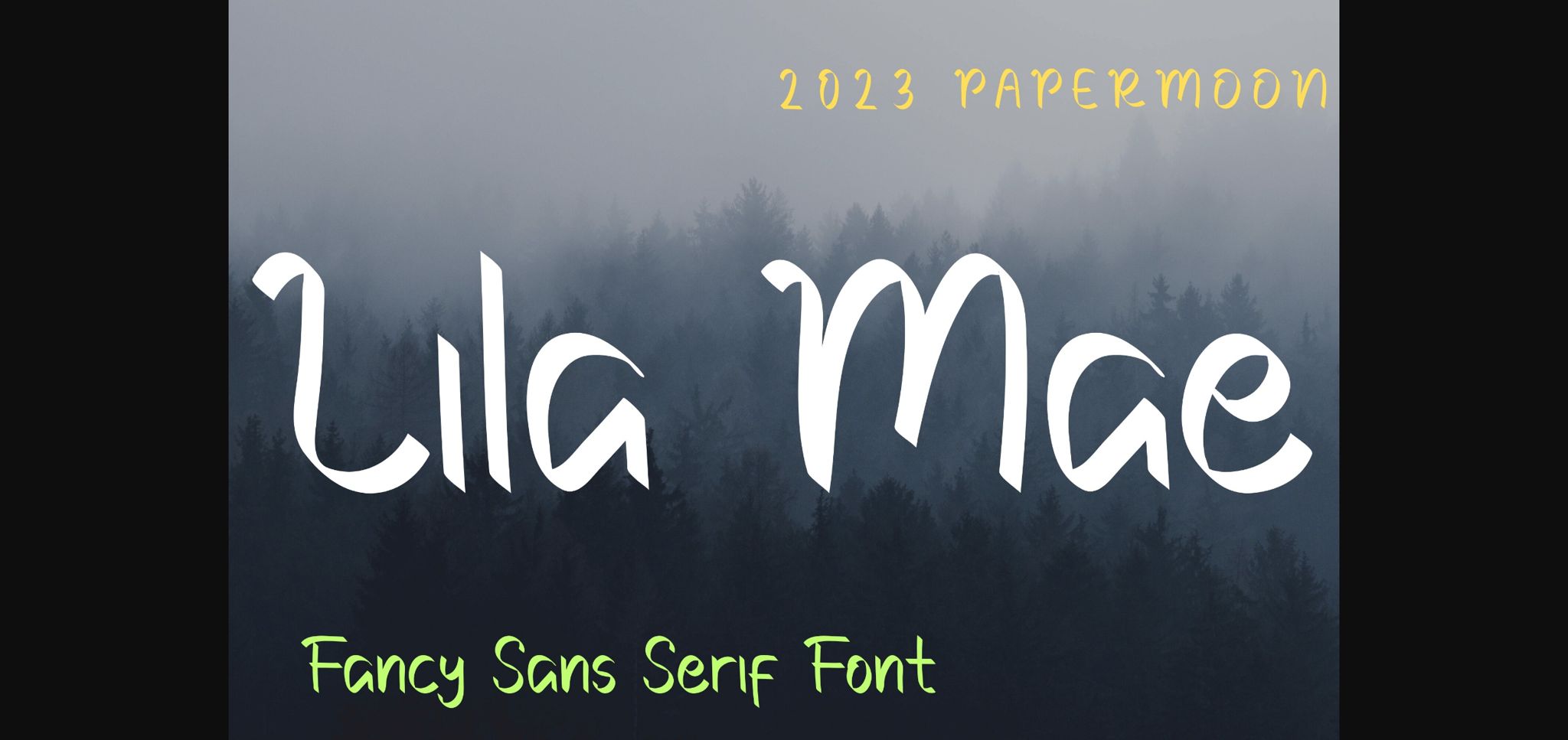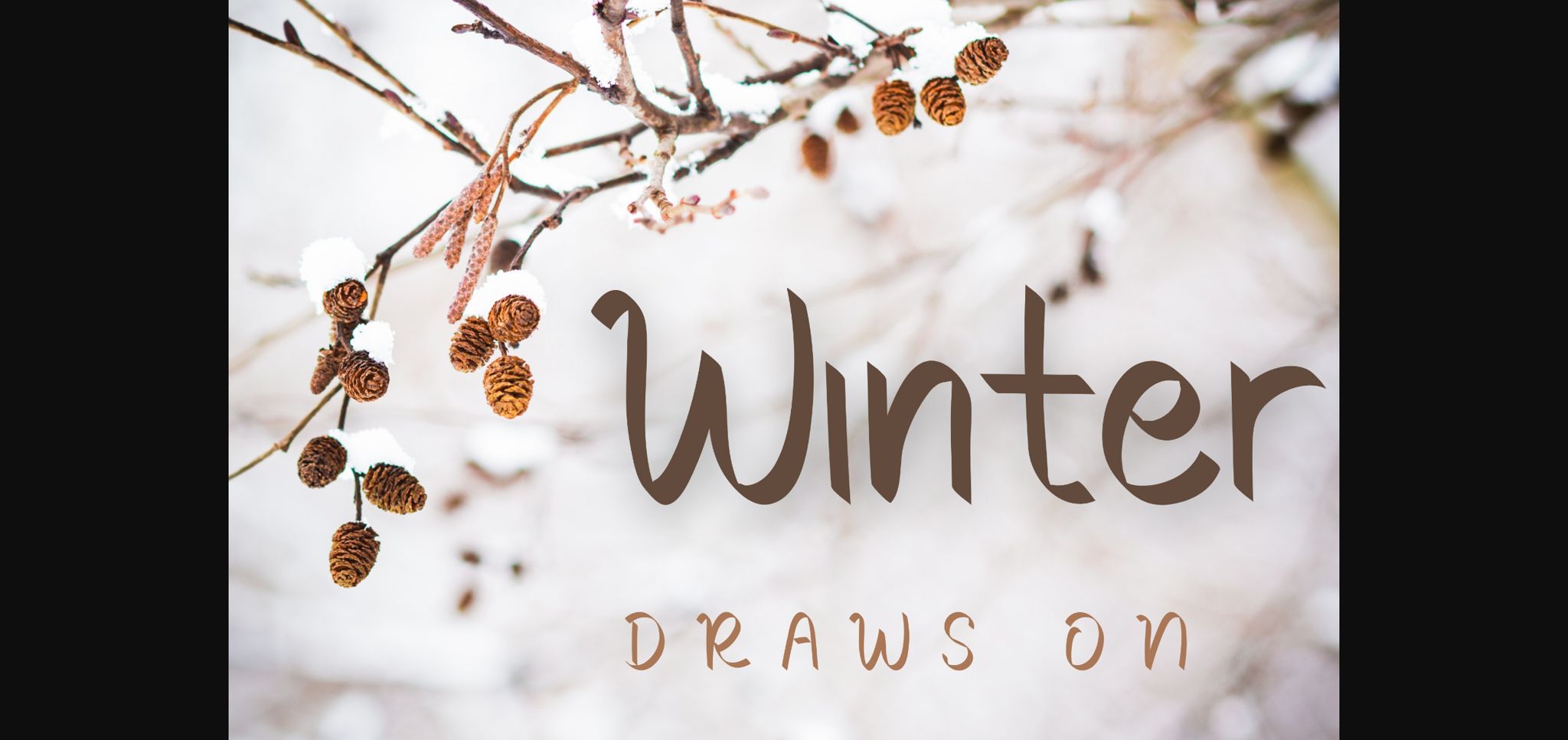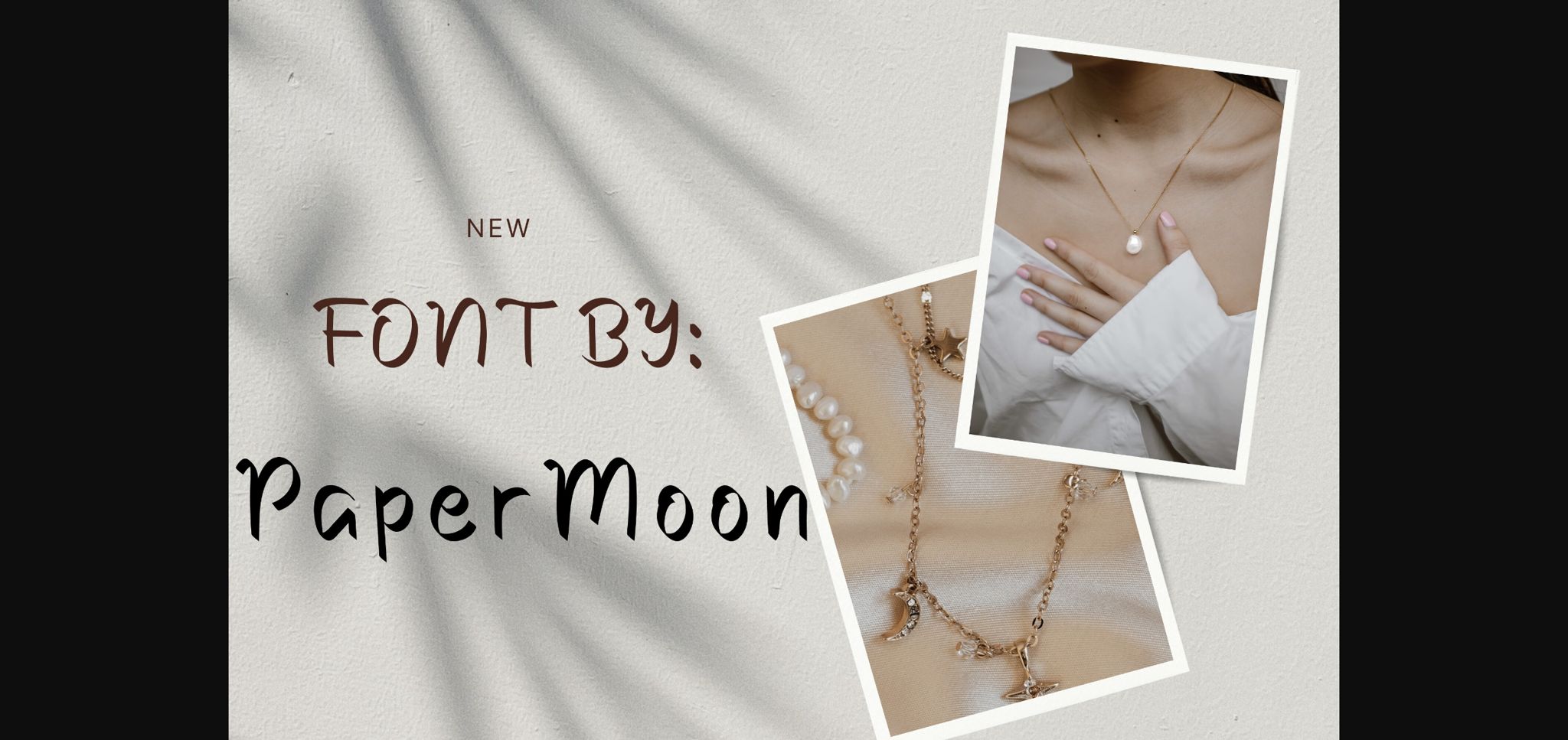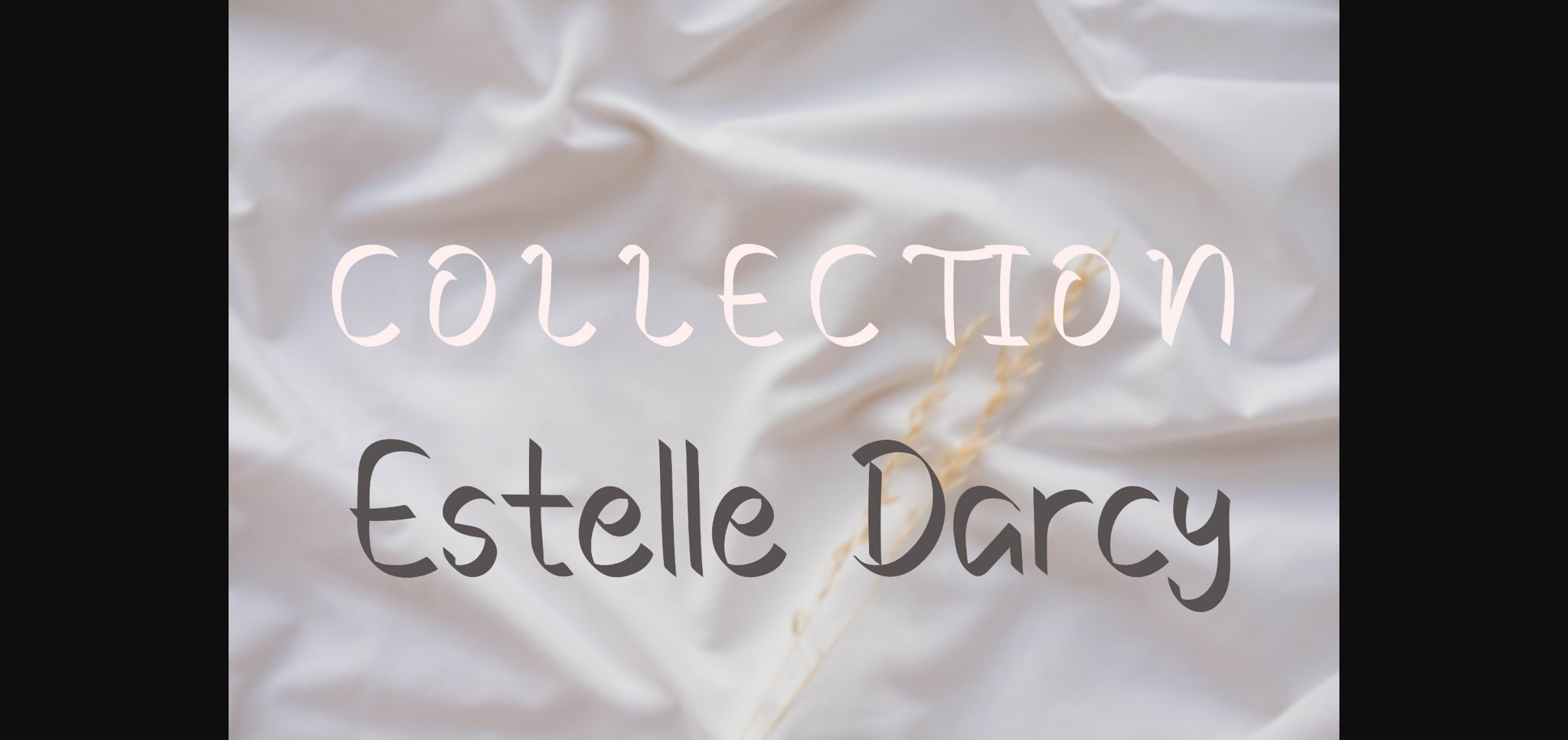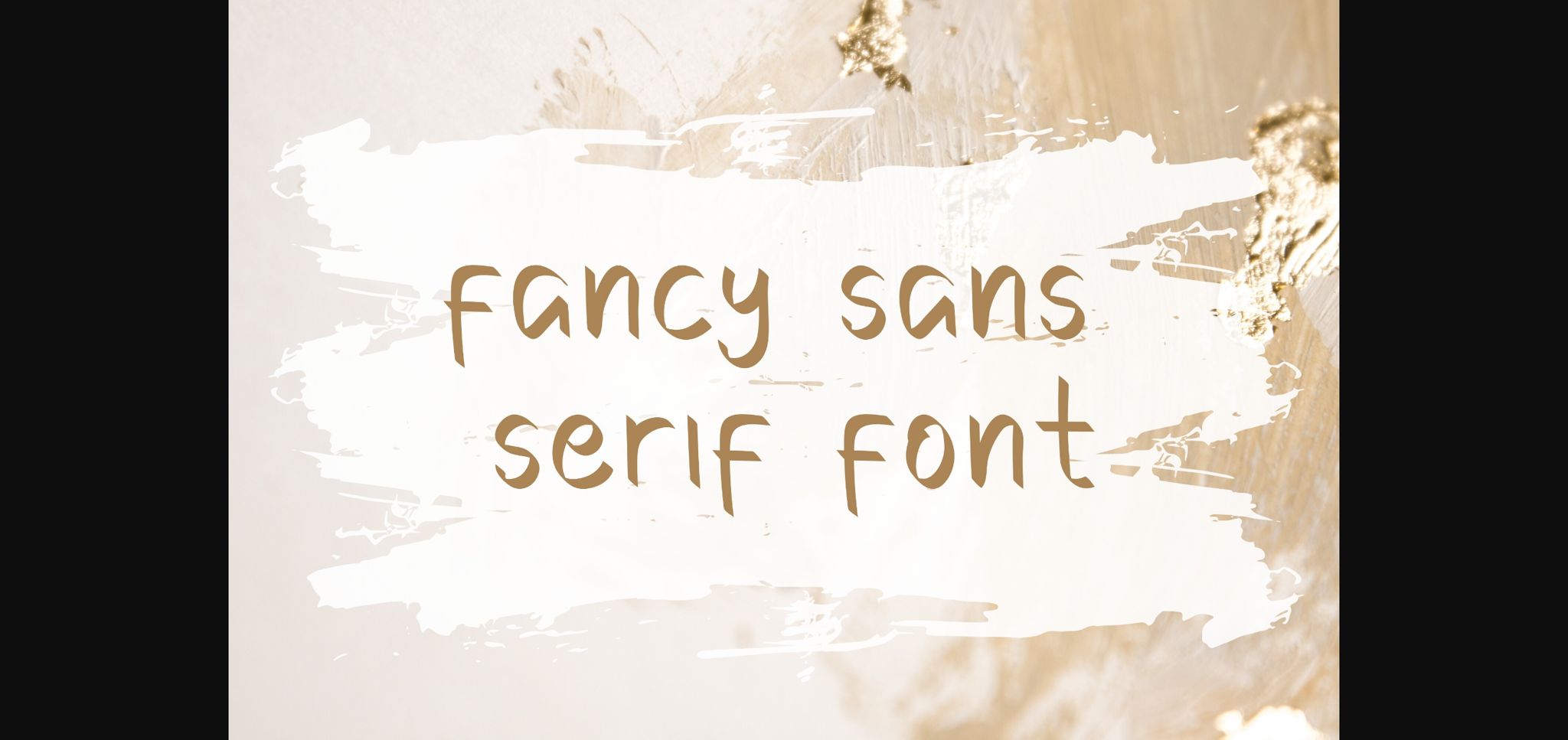
About Lila Mae Font
Introducing Lila Mae Font, a sophisticated sans serif font with a delightful handwritten touch. This unique typeface boasts a variety of styles, from fun and casual to stylish and classic. Lila Mae Font is the perfect choice for a wide range of creative projects, such as branding, stationery, business cards, signage, flyers, brochures, and more. Its extensive character set is meticulously crafted, ensuring well-spaced and perfectly kerned letters.
Lila Mae Font is a versatile choice suitable for various industries, including schools, weddings, events, non-profit foundations, florists, gardening enthusiasts, makeup artists, travelers, hotels, musicians, and many others.